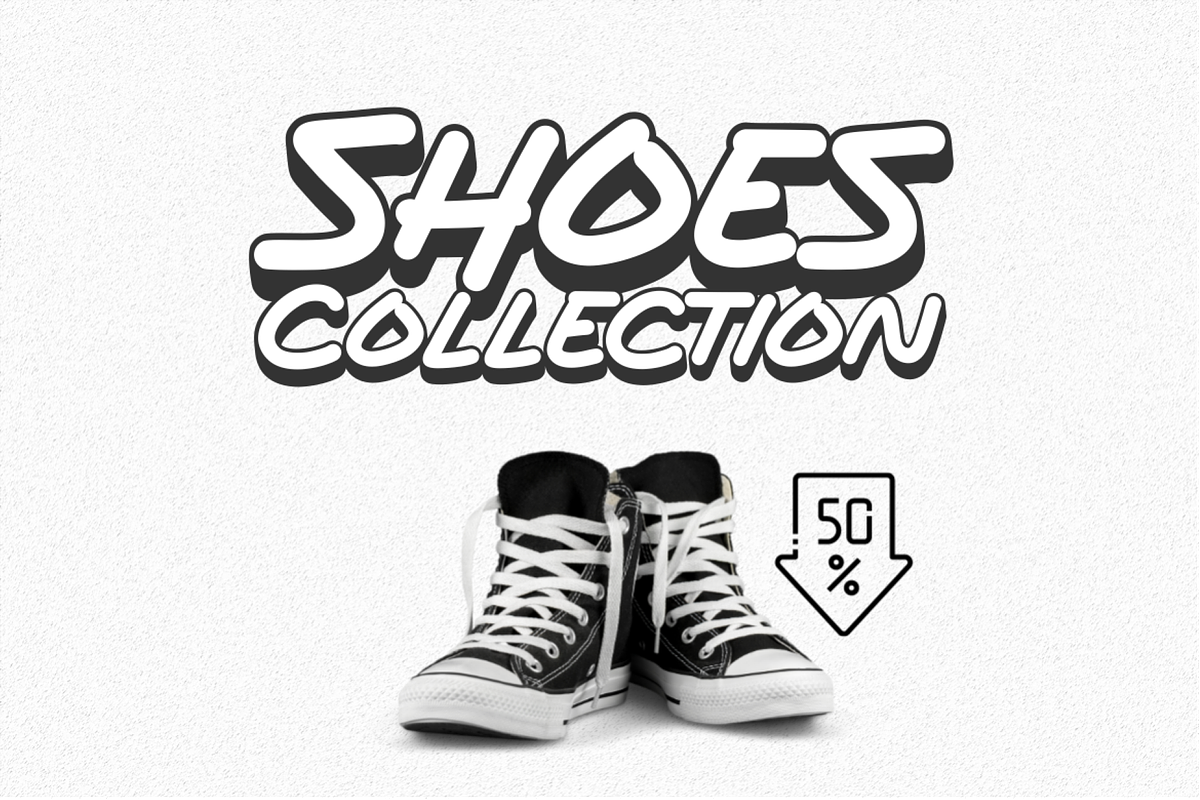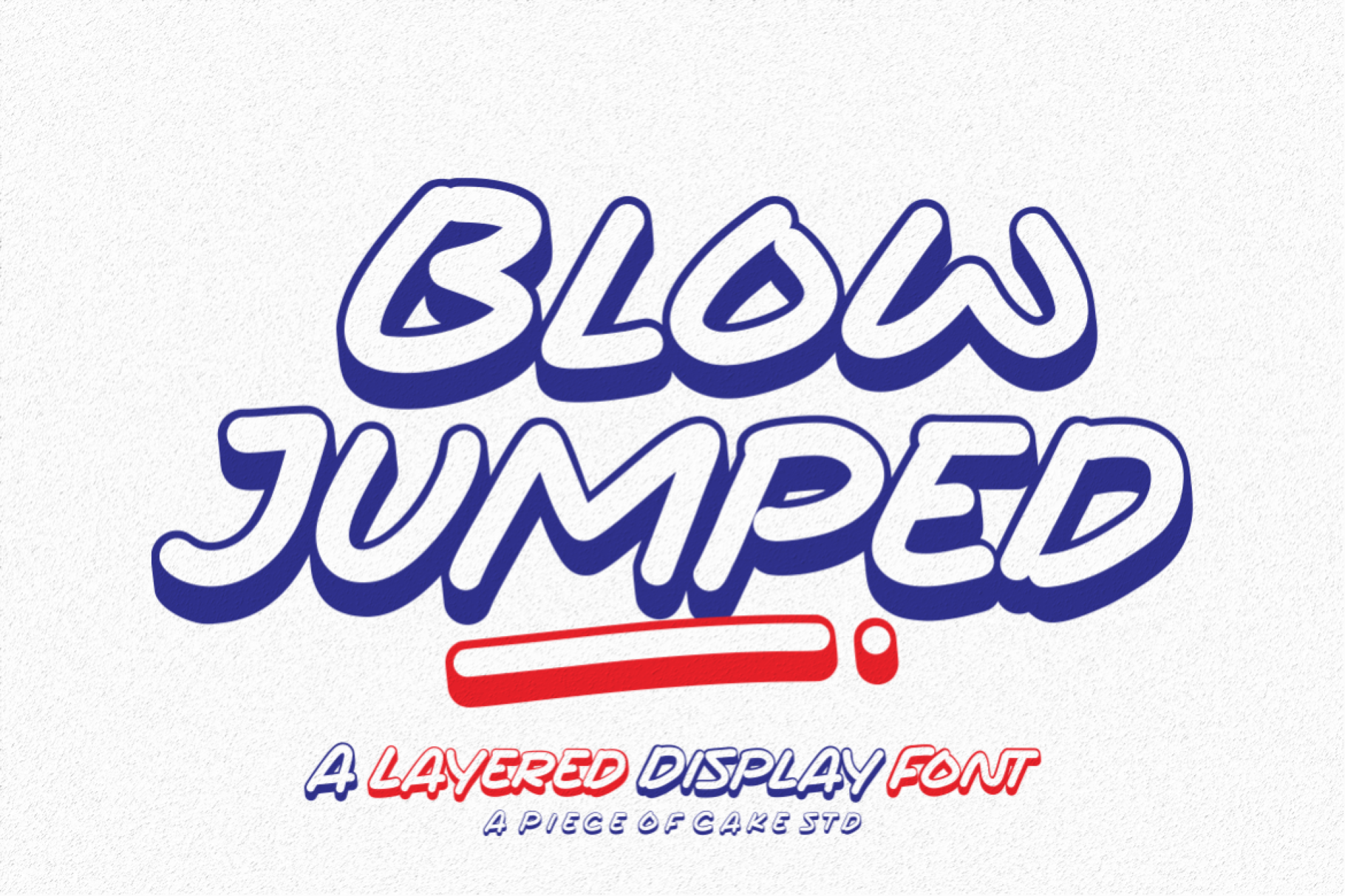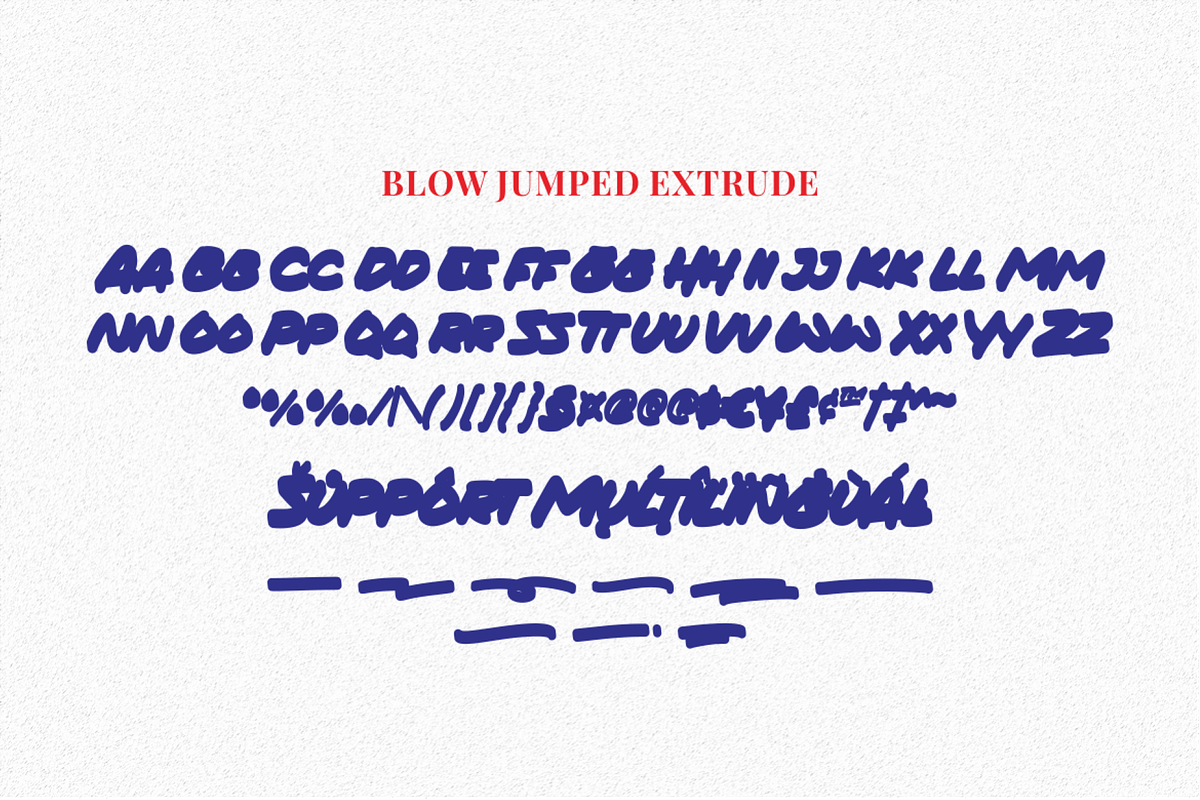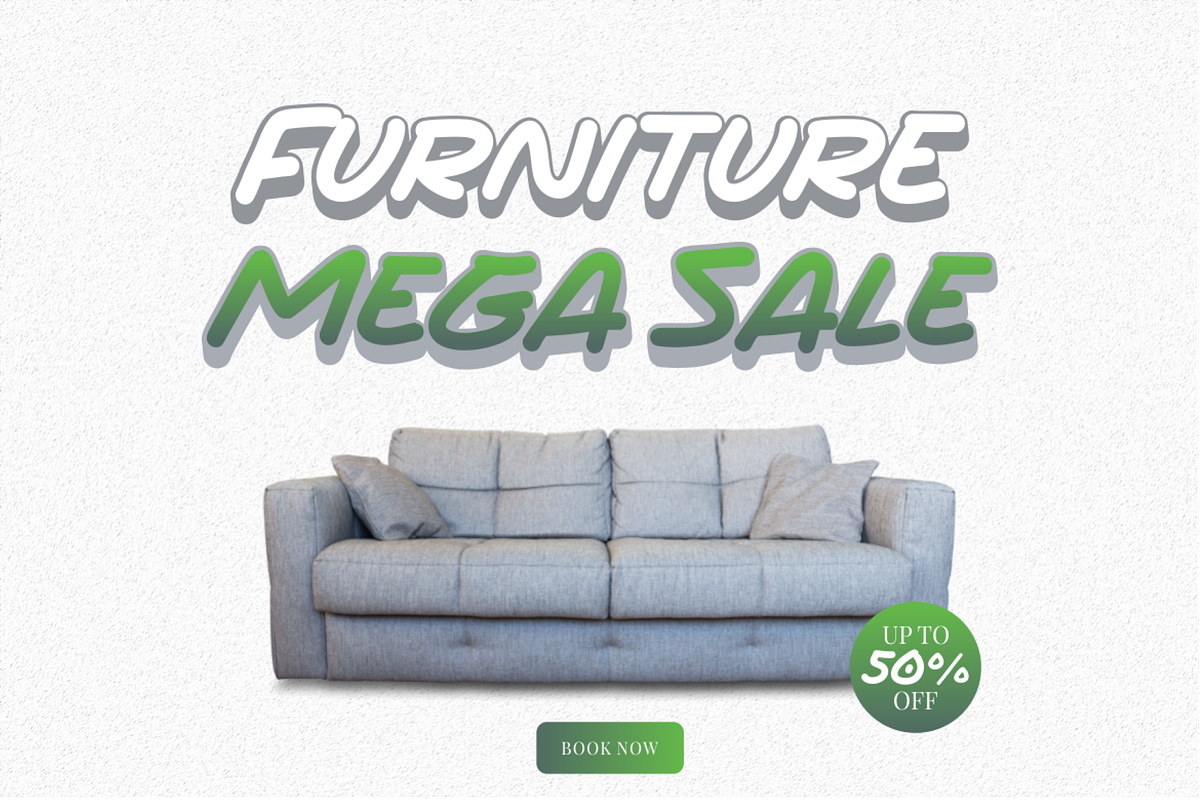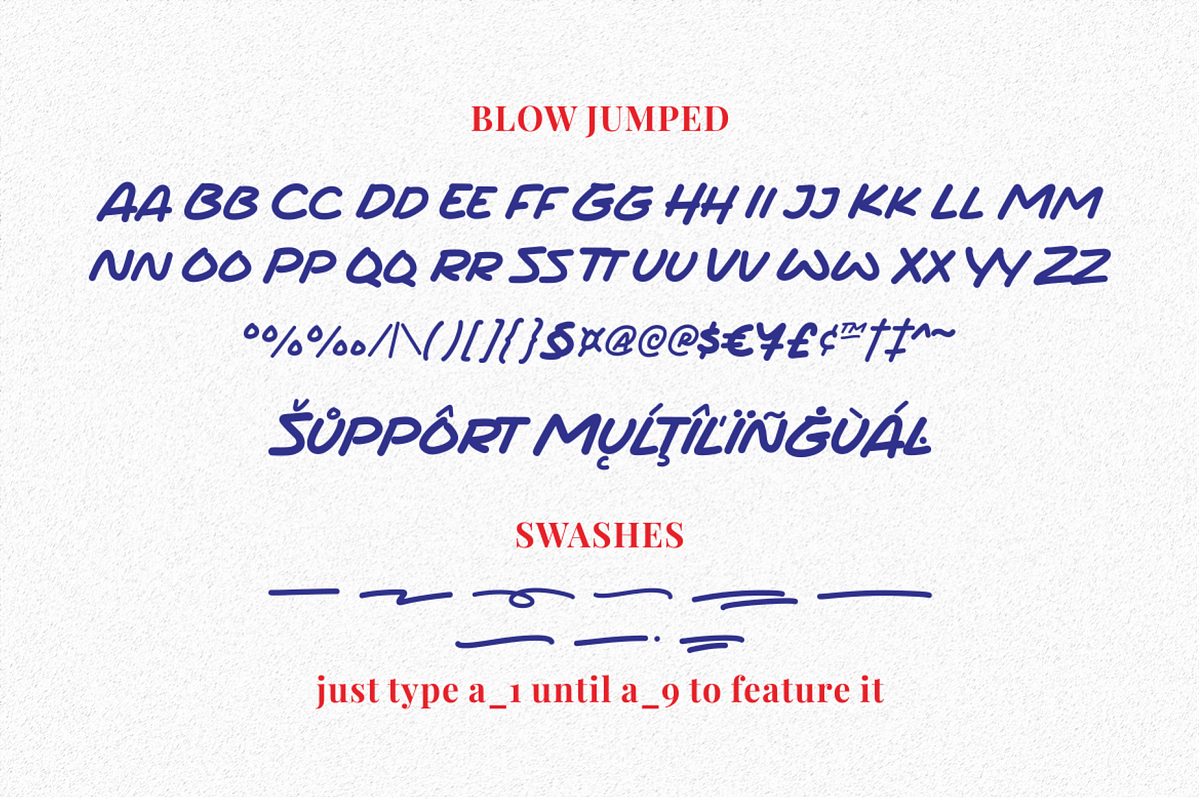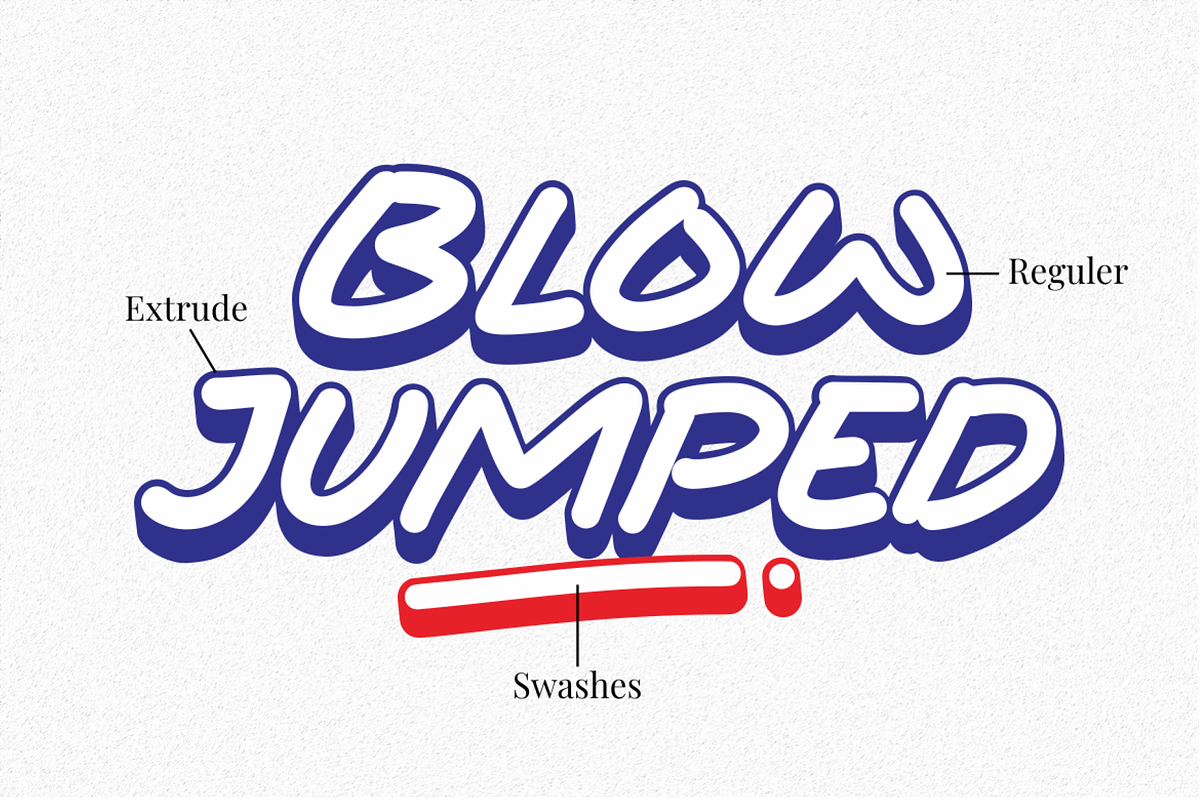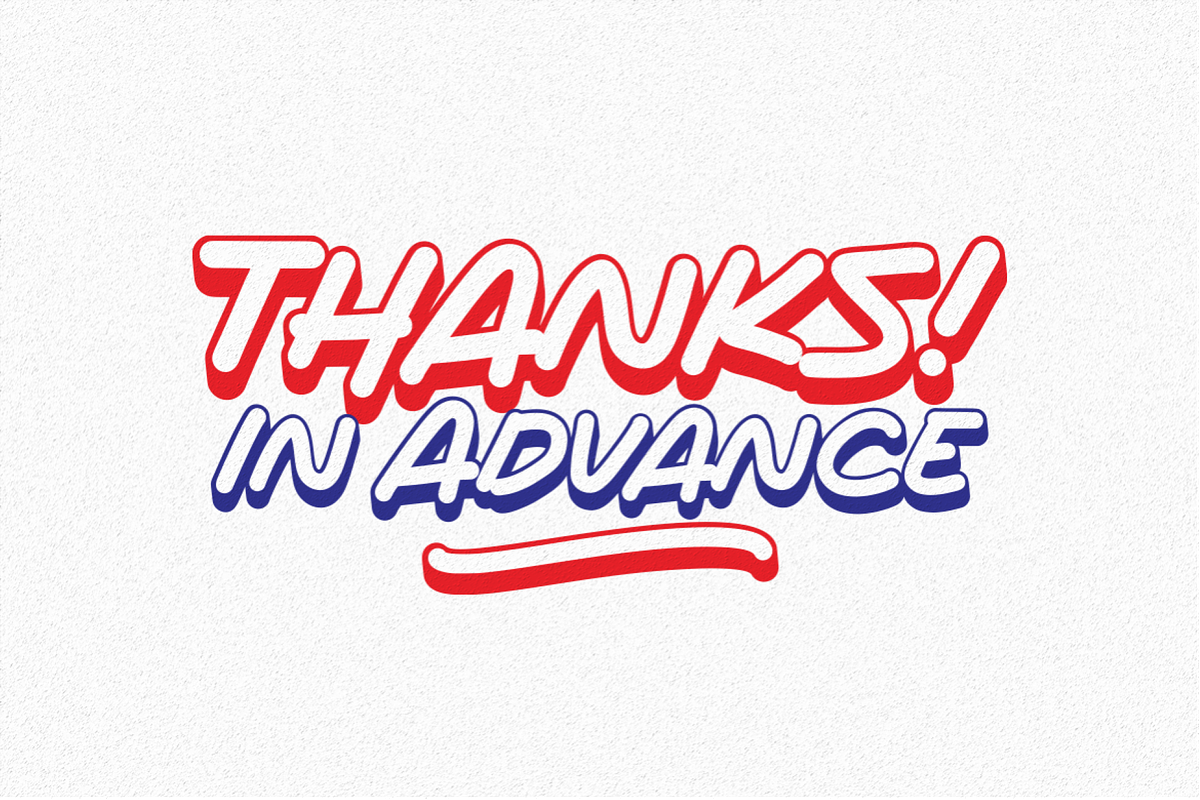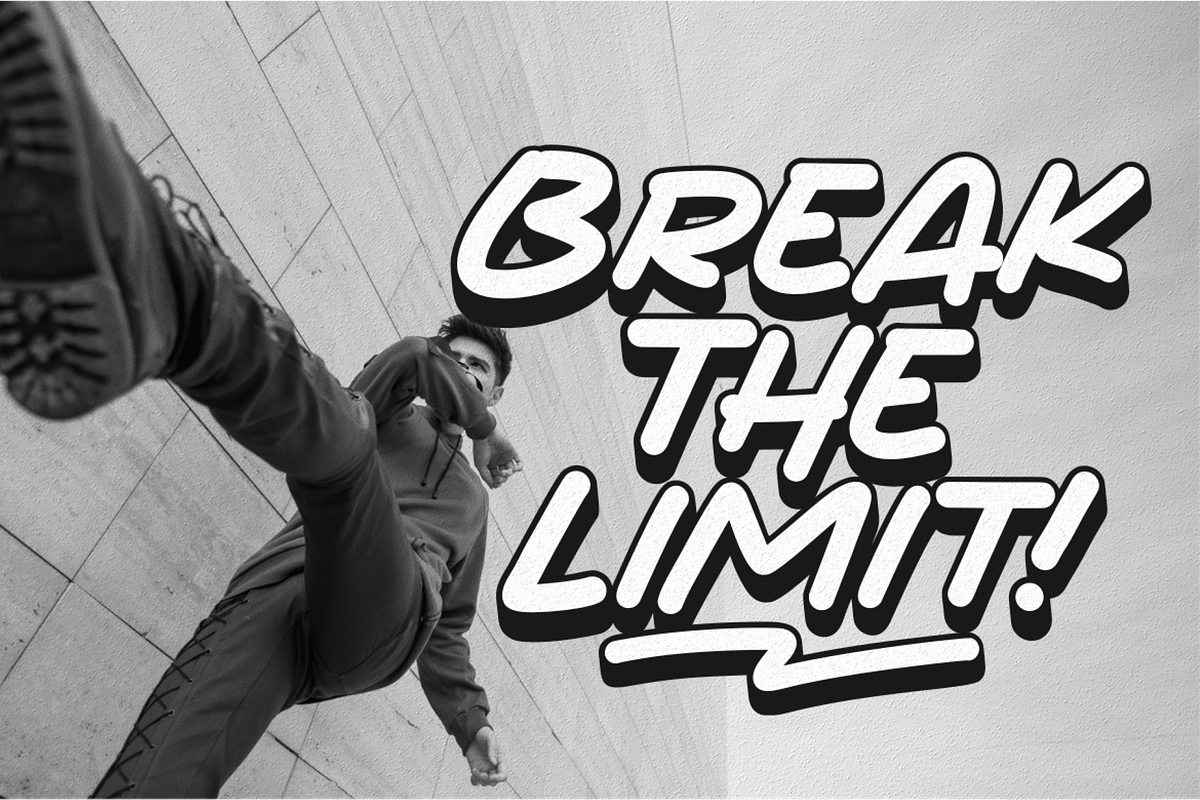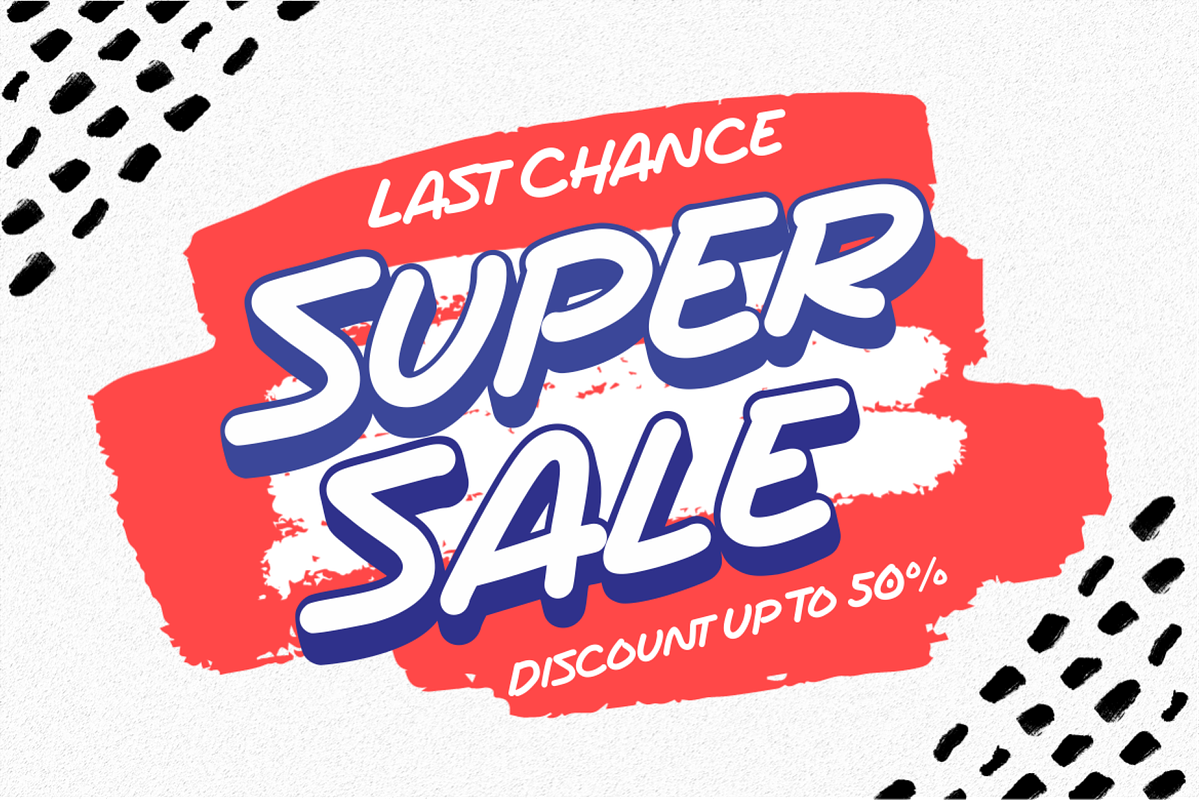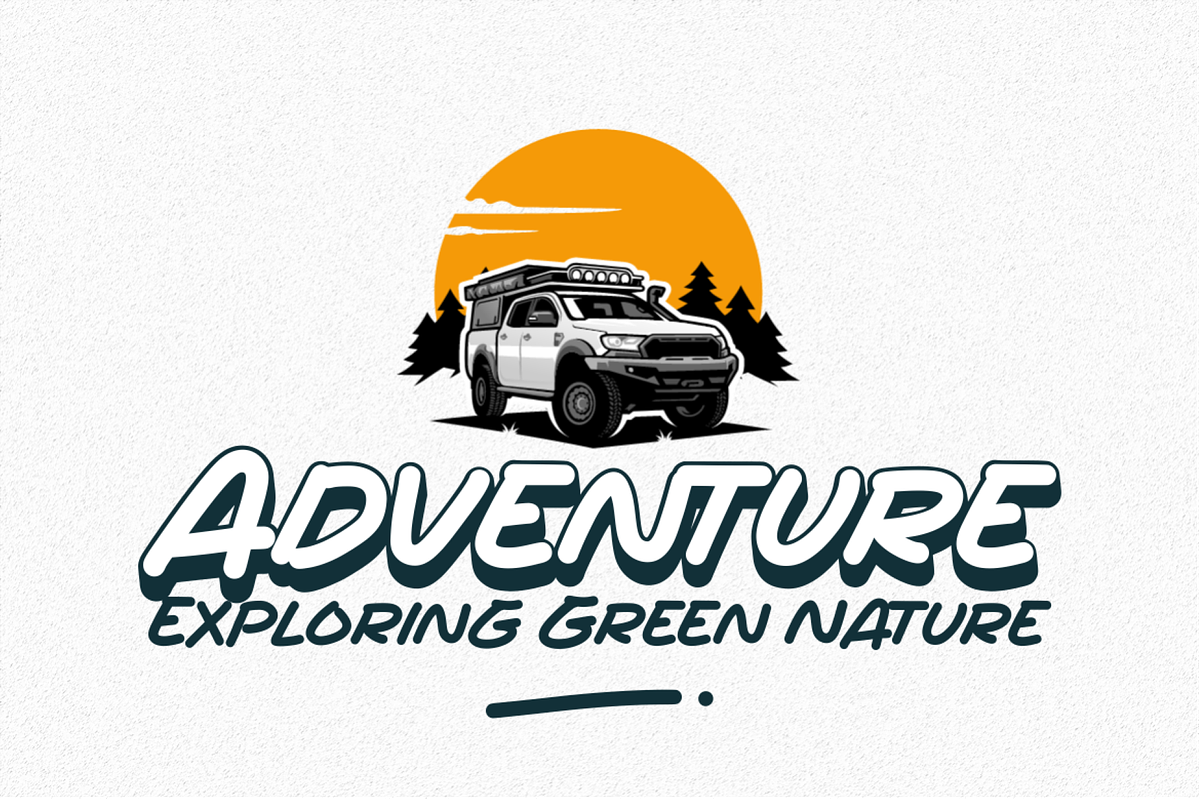
Blow Jumped - A Display Font
Introducing, Blow Jumped is a casual display font suitable for your design project needs, such as; social media posts, quotes, overlays on images, tagline, logos, posters, print needs, website banners, and more.
- A set of uppercase and lowercase glyphs
- Number, symbol, and punctuation
- Extrude Version
- Some Swashes